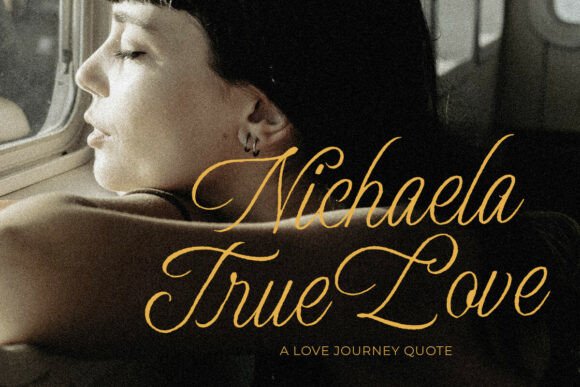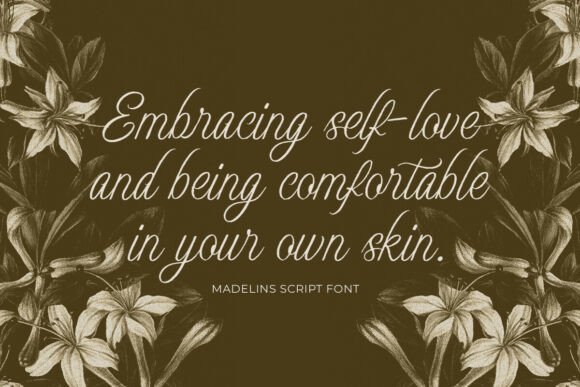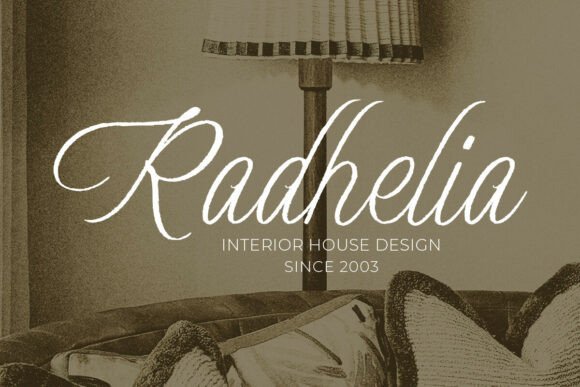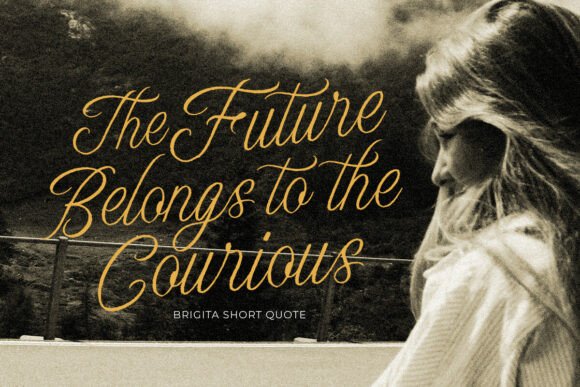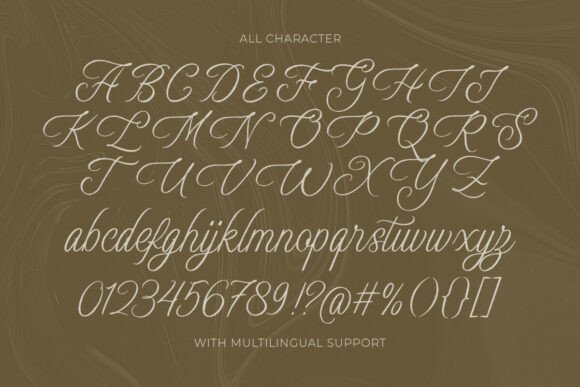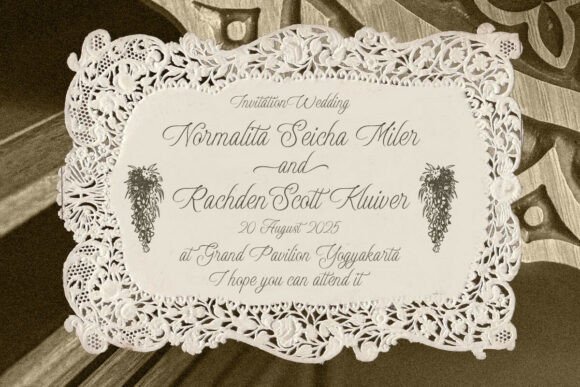
Introduction to Madelins Script Font
Madelins Script is an elegant and refined handwritten script font with a natural flow and vintage charm.
Its calligraphic strokes and graceful curves make it perfect for creating romantic, luxurious, or artistic design projects .